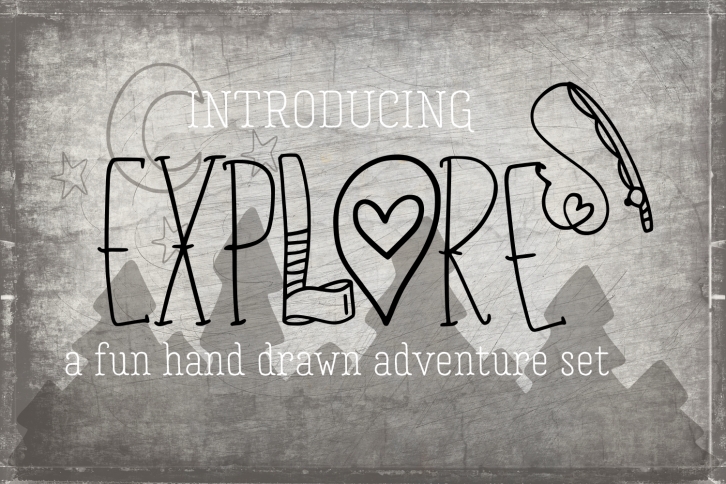
Explore OTF TTF is a beautiful font that was designed by Justina Tracy. It's a great choice for designers and creatives who need such a font. It was released on January 16, 2018 and the file size is 1.97 MB. Explore OTF TTF may give a more youthful, expressive and casual look to your project. It is a very beautiful, refined, elegant, and high-quality font.